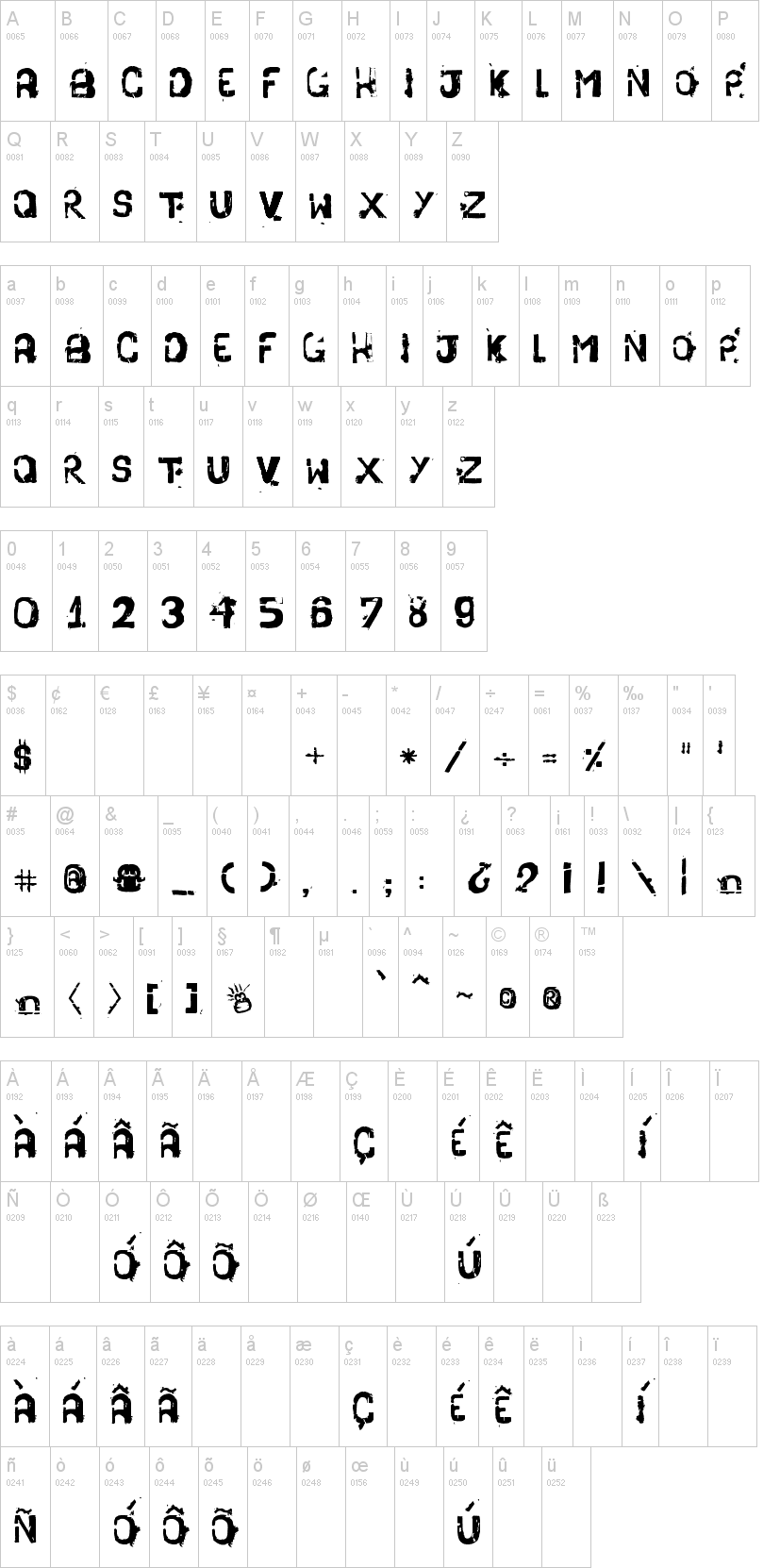
Note of the authorIn a so far away country as Guiana Francesa, some people use coconut to kill their enemyes. It works better if you wanna drink a great and cool drink in Brazil, there they have this one (the font), to sell the green coconut.